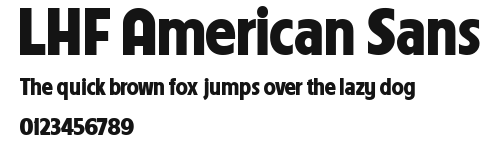
LHF American Sans Preview
• Font Name: LHF American Sans
• Full Font Name: LHF American Sans
About LHF American Sans.ttf
LHF American Sans.ttf is a modern, elegant sans-serif font designed for ultimate readability and visual harmony. Perfect for branding, headlines, web design, and print materials.